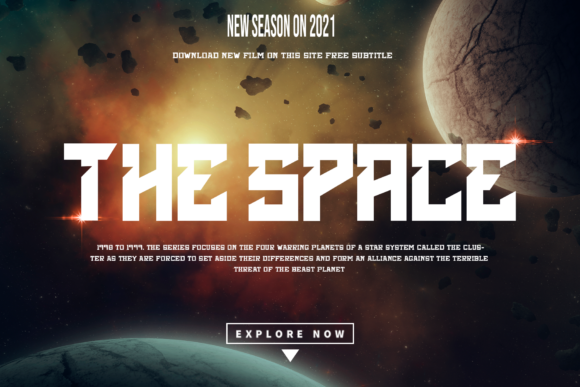
Introducing Acients Font: The Ultimate Display Font for Bold Headlines
Are you tired of using the same old fonts for your designs? Look no further! Acients Font is a cool and bold display font that is perfect for creating eye-catching headlines for sporting events, automotive posters, logo designs, and monograms. Created by Kong Font Studio, a renowned designer on Creative Fabrica, Acients Font is sure to take your designs to the next level.
What Makes Acients Font So Special?
Acients Font is a carefully crafted display font that exudes confidence and style. Its bold and modern design makes it perfect for creating attention-grabbing headlines that will leave a lasting impression on your audience. Whether you’re designing a poster for a sporting event, a logo for a new brand, or a monogram for a special occasion, Acients Font is the perfect choice.
Key Features of Acients Font
- Bold and Modern Design: Acients Font features a bold and modern design that is sure to turn heads.
- Perfect for Headlines: Its large and clear letterforms make it perfect for creating eye-catching headlines.
- Versatile: Acients Font can be used for a wide range of design projects, from sporting events to automotive posters, logos, and monograms.
- Easy to Read: Despite its bold design, Acients Font is easy to read, even at large sizes.
Who Can Benefit from Using Acients Font?
Acients Font is perfect for designers, crafters, and artists who want to add a touch of boldness and style to their designs. Whether you’re a professional designer or a hobbyist, Acients Font is a great addition to your font library. Here are some examples of designers who can benefit from using Acients Font:
- Graphic Designers: Acients Font is perfect for creating eye-catching posters, flyers, and brochures.
- Log Designers: Its bold and modern design makes it perfect for creating logos that stand out.
- Advertising Agencies: Acients Font can be used to create attention-grabbing ad copy that gets results.
- Crafters: Acients Font can be used for a wide range of crafting projects, from card making to scrapbooking.
Tips for Using Acients Font
Here are some tips for getting the most out of Acients Font:
- Use it for Headlines: Acients Font is perfect for creating eye-catching headlines that grab attention.
- Experiment with Colors: Acients Font looks great in a wide range of colors, so don’t be afraid to experiment.
- Pair it with Other Fonts: Acients Font can be paired with other fonts to create a unique and interesting design.
- Use it for Large Projects: Acients Font is perfect for large projects, such as posters, billboards, and signage.
Acients Font is a cool and bold display font that is perfect for designers, crafters, and artists who want to add a touch of style and sophistication to their designs. Its bold and modern design makes it perfect for creating eye-catching headlines for sporting events, automotive posters, logo designs, and monograms. With its versatility, ease of use, and bold design, Acients Font is a great addition to any font library.